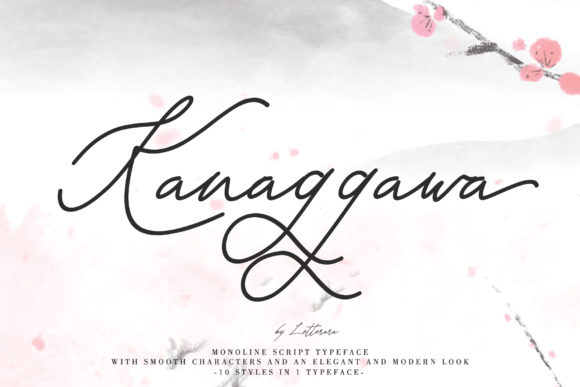
Welcome to the world of Kanaggawa, the script font that will redefine your design expression with its exquisite boldness and modern grace. Dive into the realm of boundless creativity as you discover a font that captures the essence of elegance and sophistication.
With Kanaggawa, your designs will dance with a rhythmic flow, thanks to its beautiful swashes and carefully crafted curves. Experience the freedom of expression as you unleash your imagination, adorning your projects with a touch of contemporary flair.
Step into the spotlight with Kanaggawa, the font that commands attention and leaves a lasting impression. Its bold presence will elevate your designs to new heights, attracting the gaze of your audience and leaving them captivated by your creations.
But Kanaggawa is not just about aesthetics; it's also a versatile performer, adapting seamlessly to a wide range of design projects. Whether you're crafting logos, branding materials, invitations, social media posts, or website designs, Kanaggawa will effortlessly elevate your work, adding an undeniable touch of sophistication.
So, embrace the allure of Kanaggawa and let your creativity soar. Indulge in the endless possibilities it offers, transforming your designs into captivating masterpieces that speak volumes. Get ready to experience a new level of design brilliance with Kanaggawa, the script font that will redefine your creative journey.